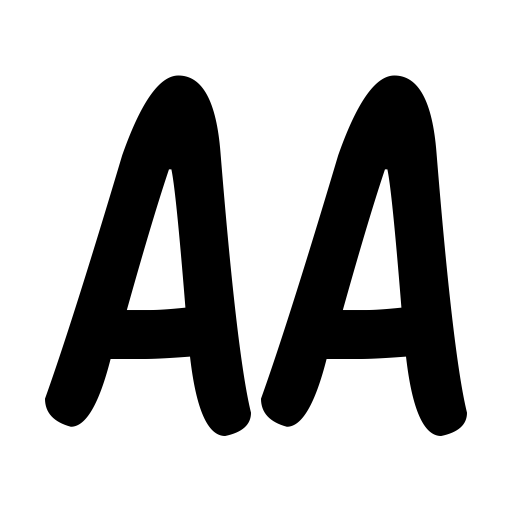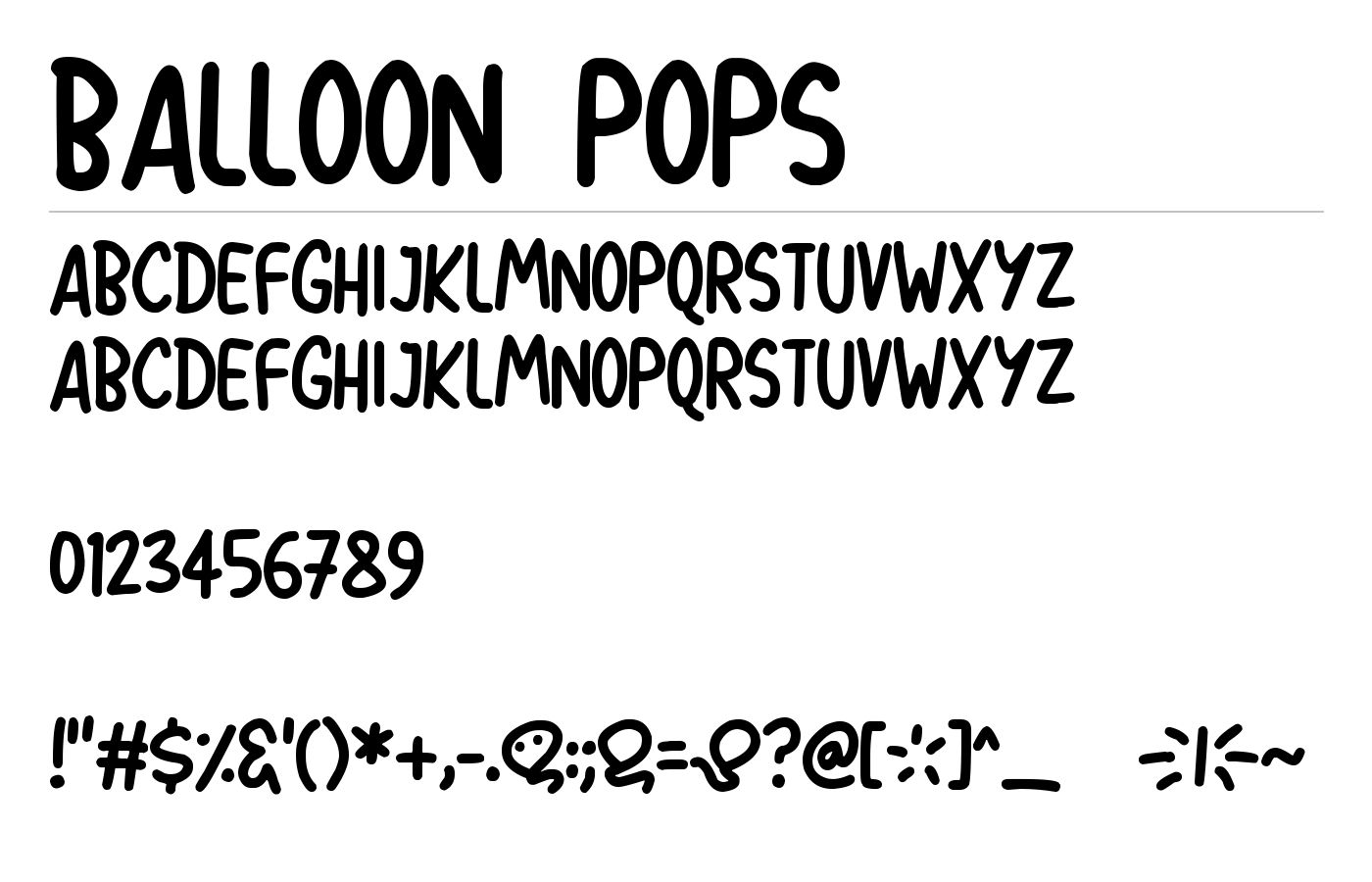
Balloon Pops is a playful, rounded sans-serif font with a hand-drawn feel that brings a friendly and casual vibe to any design. Its bold, slightly condensed letterforms with soft curves and consistent stroke weight make it perfect for children's books, party invitations, or fun branding where a lively, approachable look is desired. This font stands out in headlines and logos, adding a cheerful and inviting personality to creative projects.